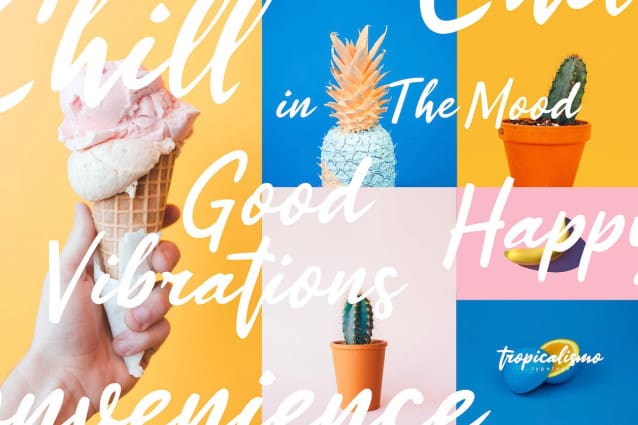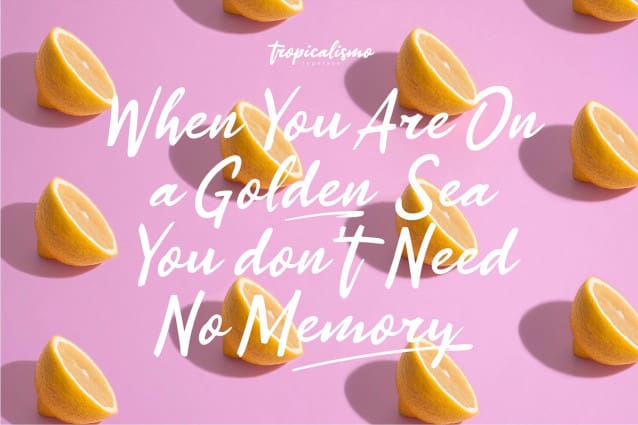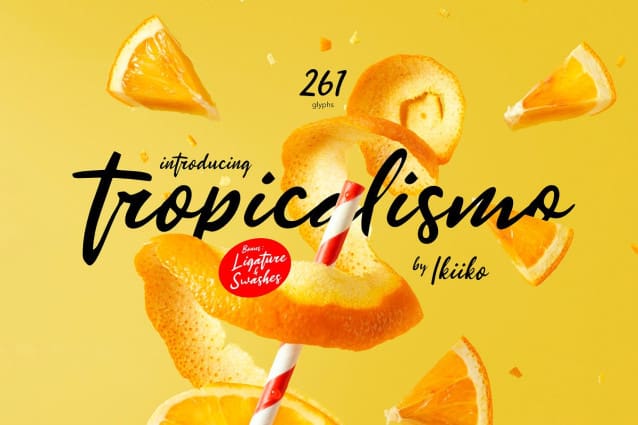
Tropicalismo Script Font
Tropicalismo Script Font, created by ikiiko. A festive handwriting typeface with holiday vibes, fun and joy. You will feel the freshness and pleasure in expression. This typeface is perfect for an holiday season stuff like poster, flyer, or email blast. And also good for beauty product, packaging product, quotes, or simply as a stylish text overlay to any background image.